Browse & save: high-impact birthday fonts for banners, party invites, cake toppers, thumbnails, and price tags. Handpicked styles for playful display, handwritten marker, sweet scripts, groovy retro, and cute kids looks.
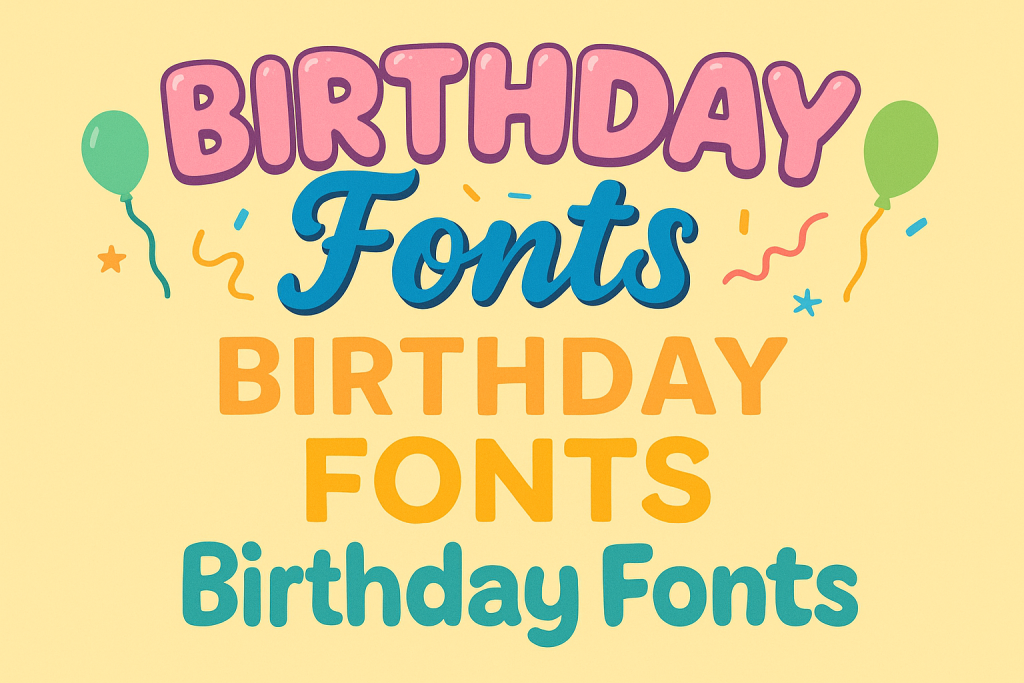
Best birthday font styles (what works & why)
Fun / Playful Display
Try these playful birthday font searches:
- Fun fonts → – lighthearted and bold, perfect for kids’ party invites and banners
- Playful fonts → – cheerful energy for balloon letters or cake topper text
- Balloon fonts → – puffy 3D styles for main titles and number accents
- Bubble fonts → – rounded letterforms great for thumbnails and cute graphics
- Chubby fonts → – bold, squishy and attention-grabbing, ideal for printables
- Rounded fonts → – smooth and legible for banners, tags, and party signs
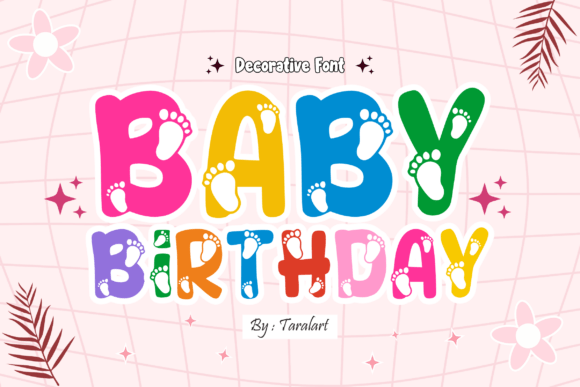
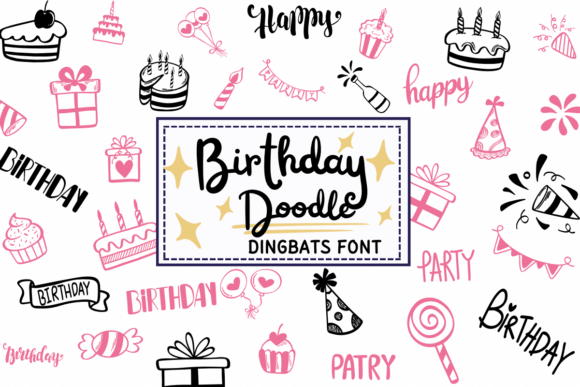
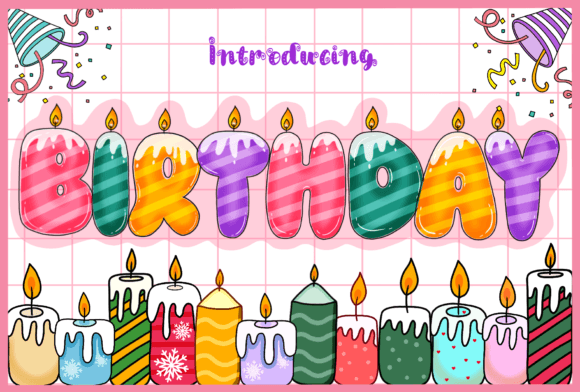
Handwritten / Marker
Energetic strokes for countdowns, limited-time offers, and social frames. Keep to accents for legibility.
- Marker fonts → – bold and expressive, great for flash sale banners
- Brush fonts → – dynamic strokes with personality
- Chalk fonts → – school-style flair for kids’ party signs
- Crayon fonts → – playful and colorful look for toddlers’ themes
- Handwritten fonts → – authentic and casual, for personal party notes
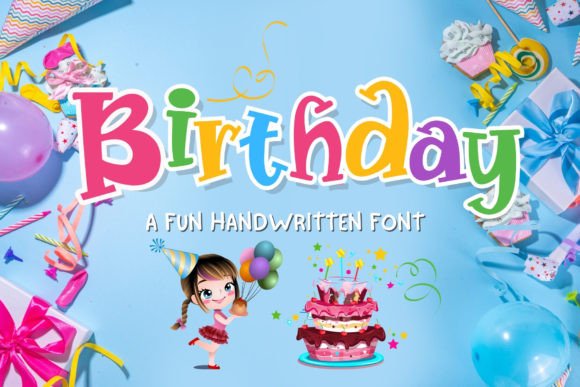
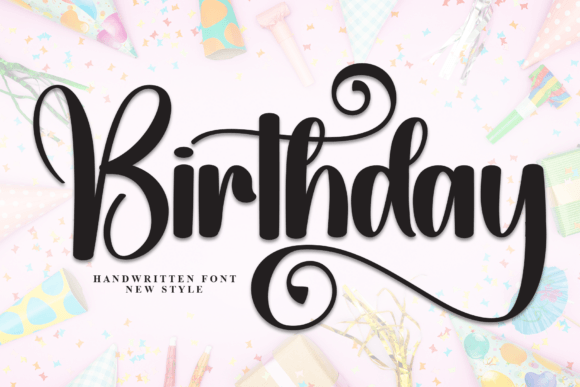
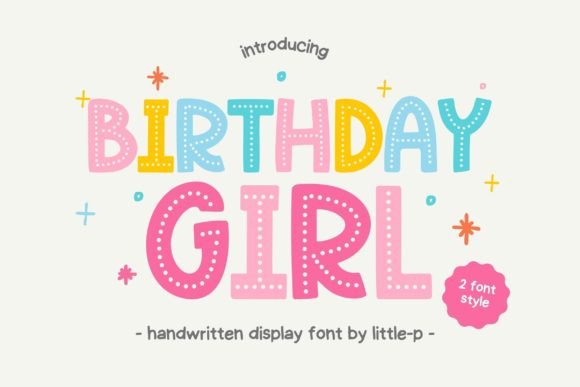
Script / Names
Romantic or celebratory looks for names, “Happy Birthday” designs, and cake toppers. Use bouncy calligraphy with swashes or glitter.
- Script fonts → – flowing lines for elegant birthday designs
- Cursive fonts → – smooth, connected letters ideal for names
- Name fonts → – tailored for monograms and gifts
- Signature fonts → – modern editorial look for stylish accents
- Calligraphy fonts → – ornate and swashy for big-impact headings
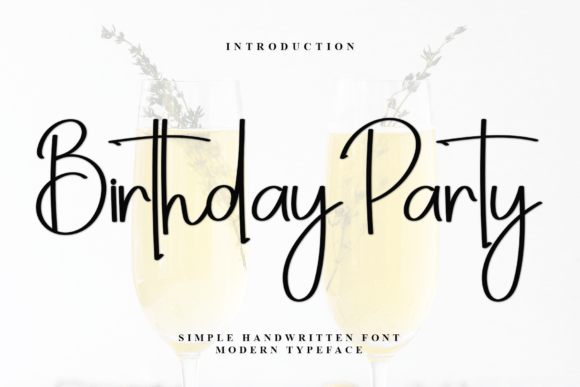
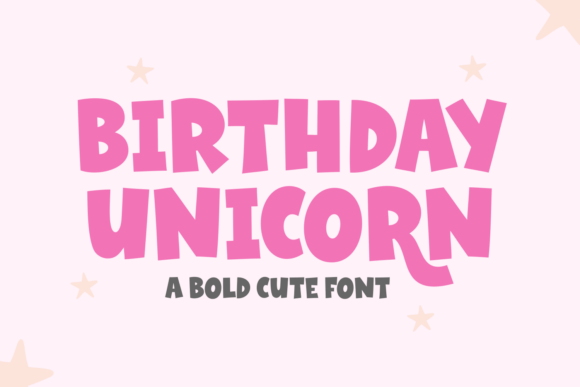
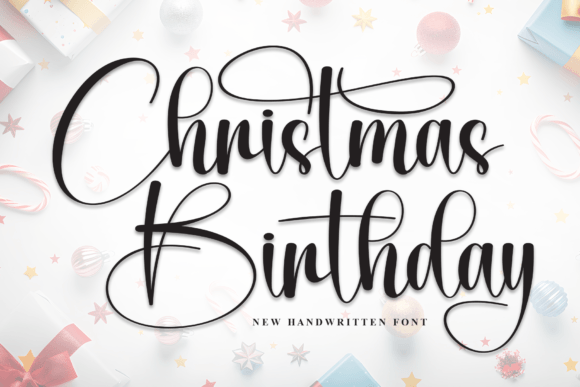
Retro Groovy Birthday
Turn up the funk with 70s-style fonts and bold rounded shapes. Great for disco themes, throwback birthdays, or funny memes.
- Groovy fonts → – retro vibes for adult party invites
- Vintage fonts → – nostalgic style for milestone birthdays
- Disco fonts → – flashy and fun with sparkly effects
- 70s fonts → – bubbly and bold for large banners
FAQ
Bold rounded sans with strong numerals. They read at a glance and compress well in small spaces.
Script is festive and friendly for names & headlines; signature is modern/editorial for subheads and accents. Pair either with a quiet serif/sans.
Choose families with tabular figures (monospaced numerals) so 10/100/1000 align neatly on prices and dates.